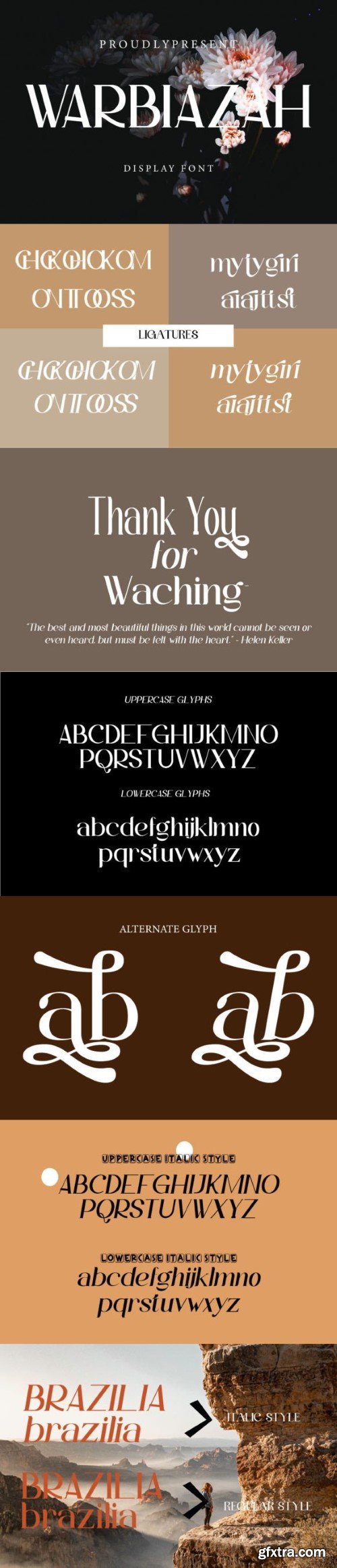
瓦尔比亚扎克字体
Warbiazah is a lovely and timeless serif display font. It is the best choice for creating eye catching logos, branding and quotes. Every letter has a unique and beautiful touch, which will make your design come alive!